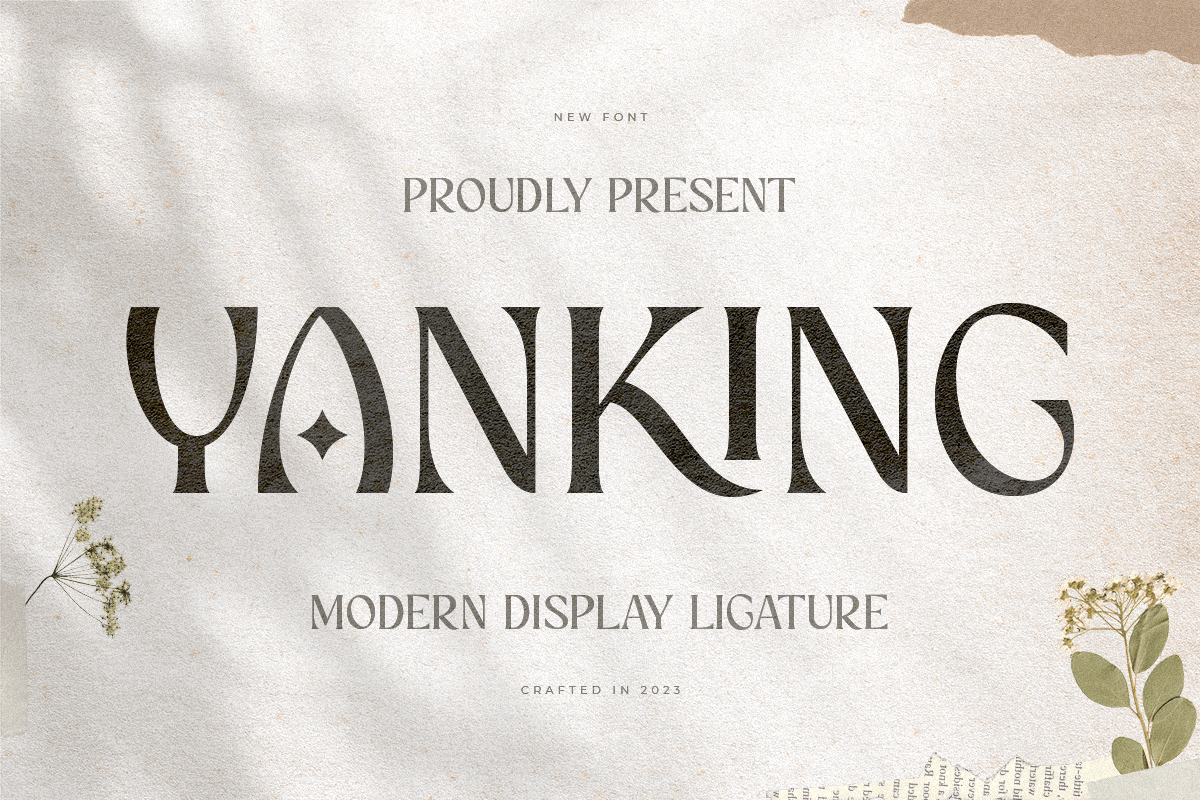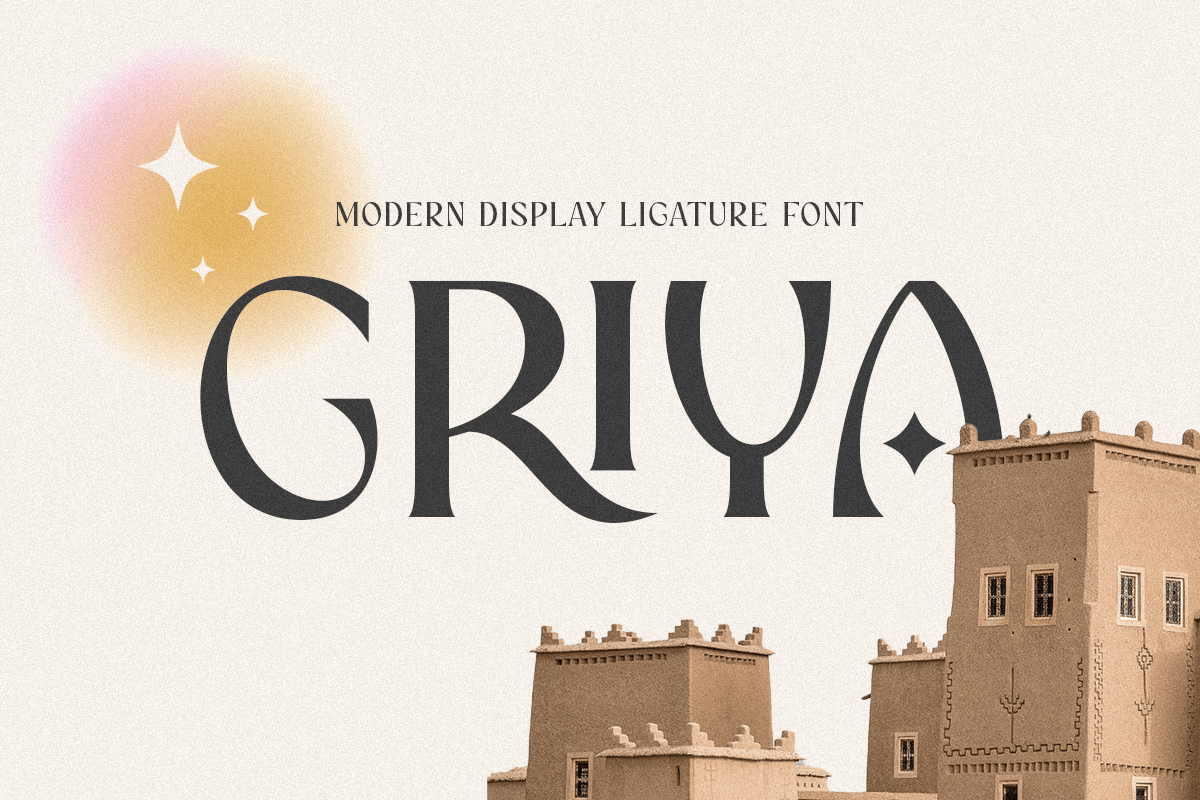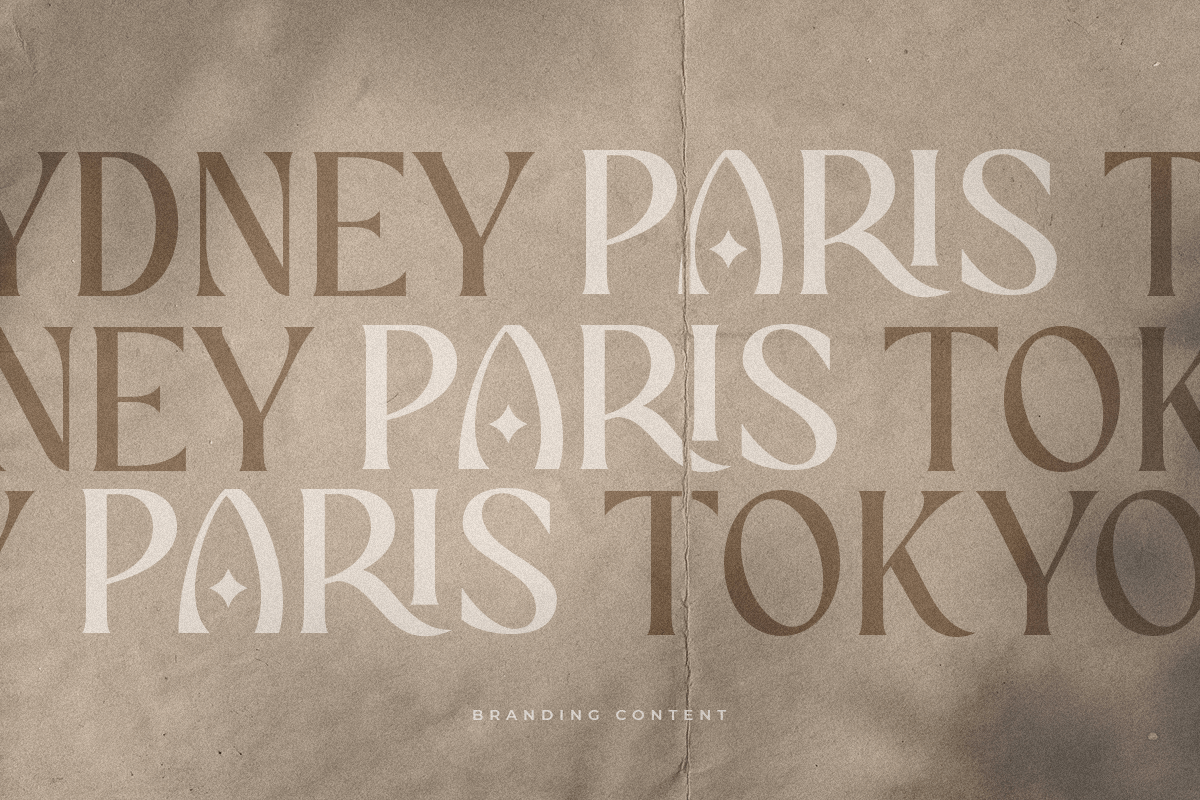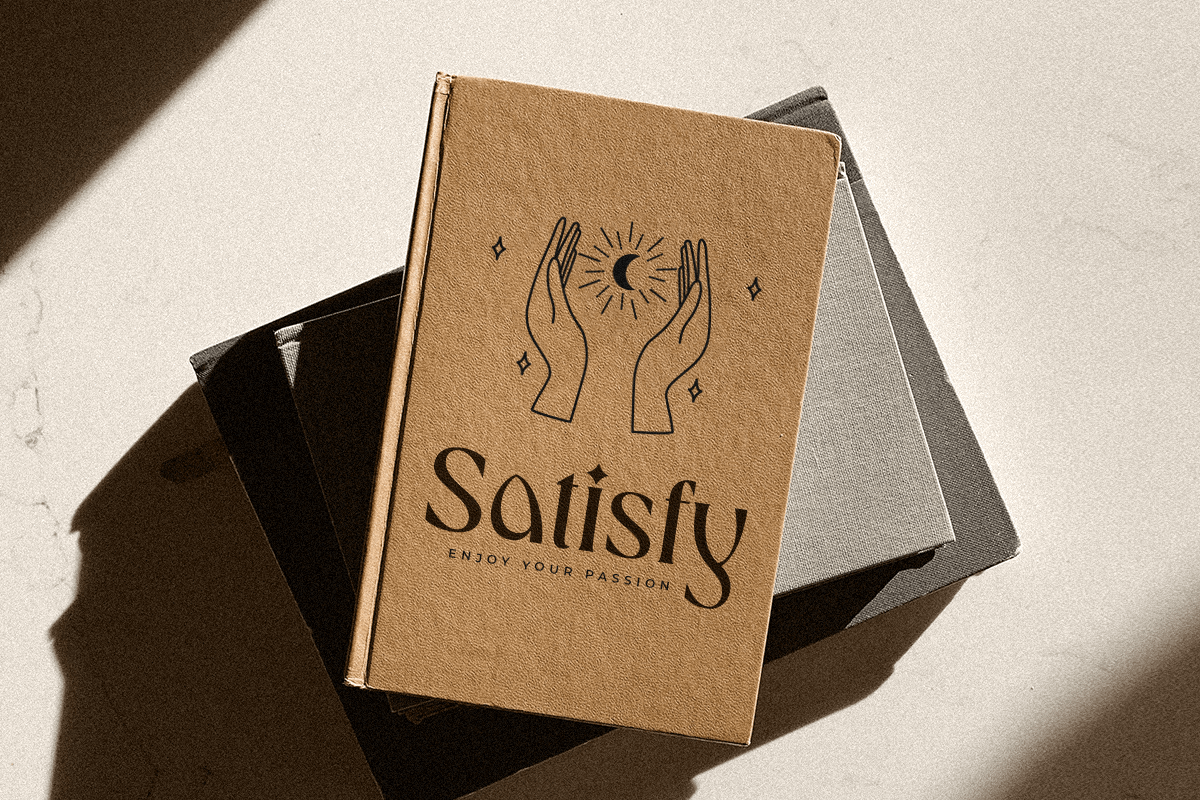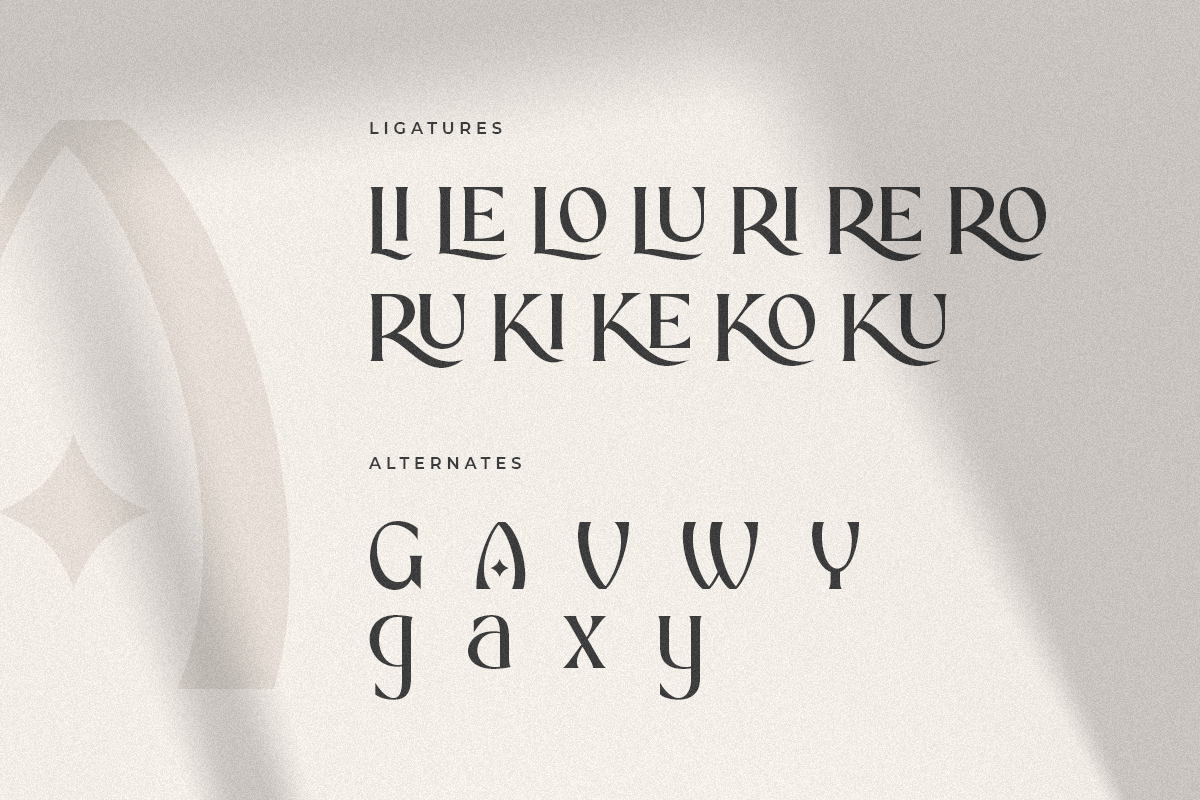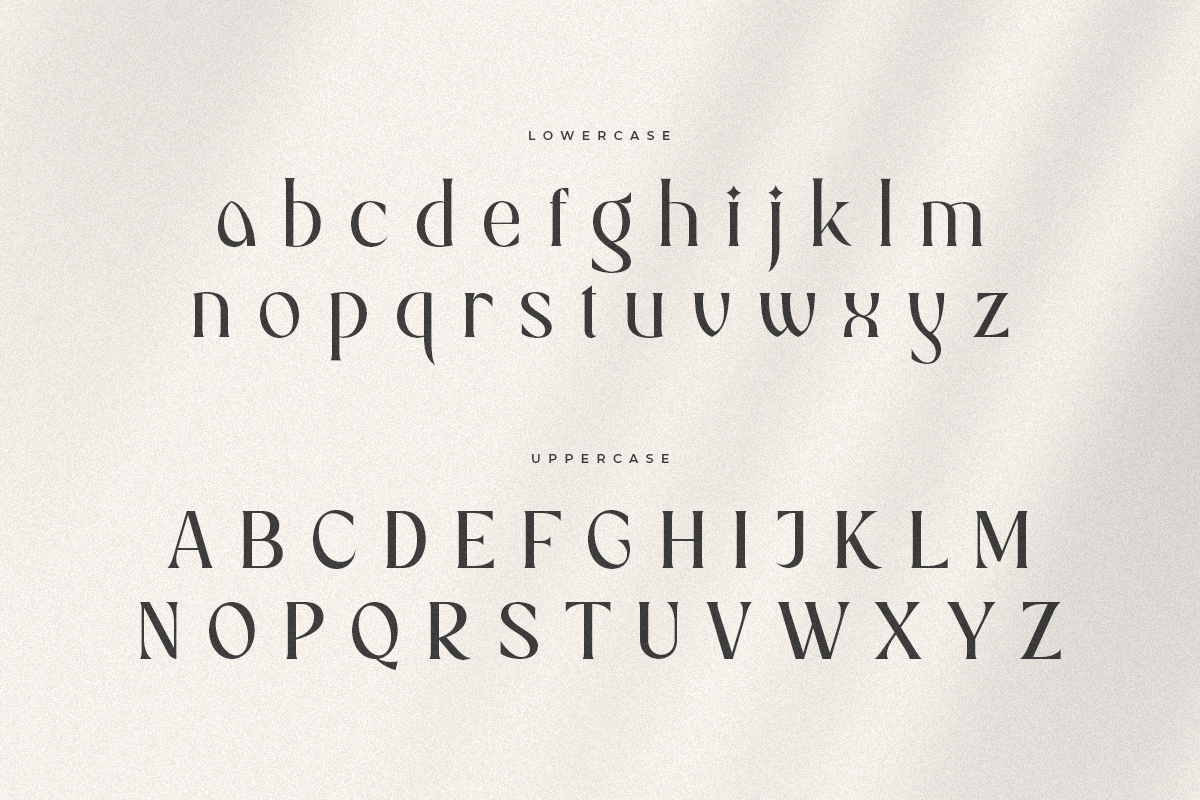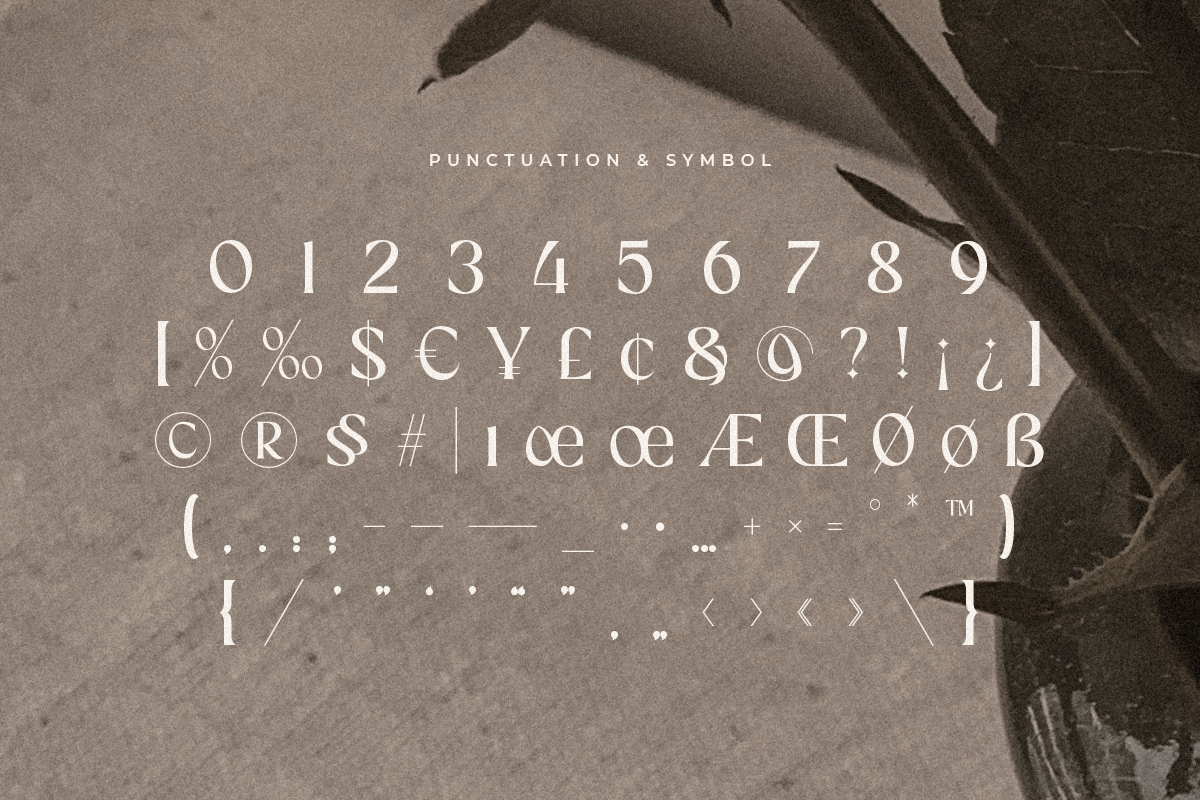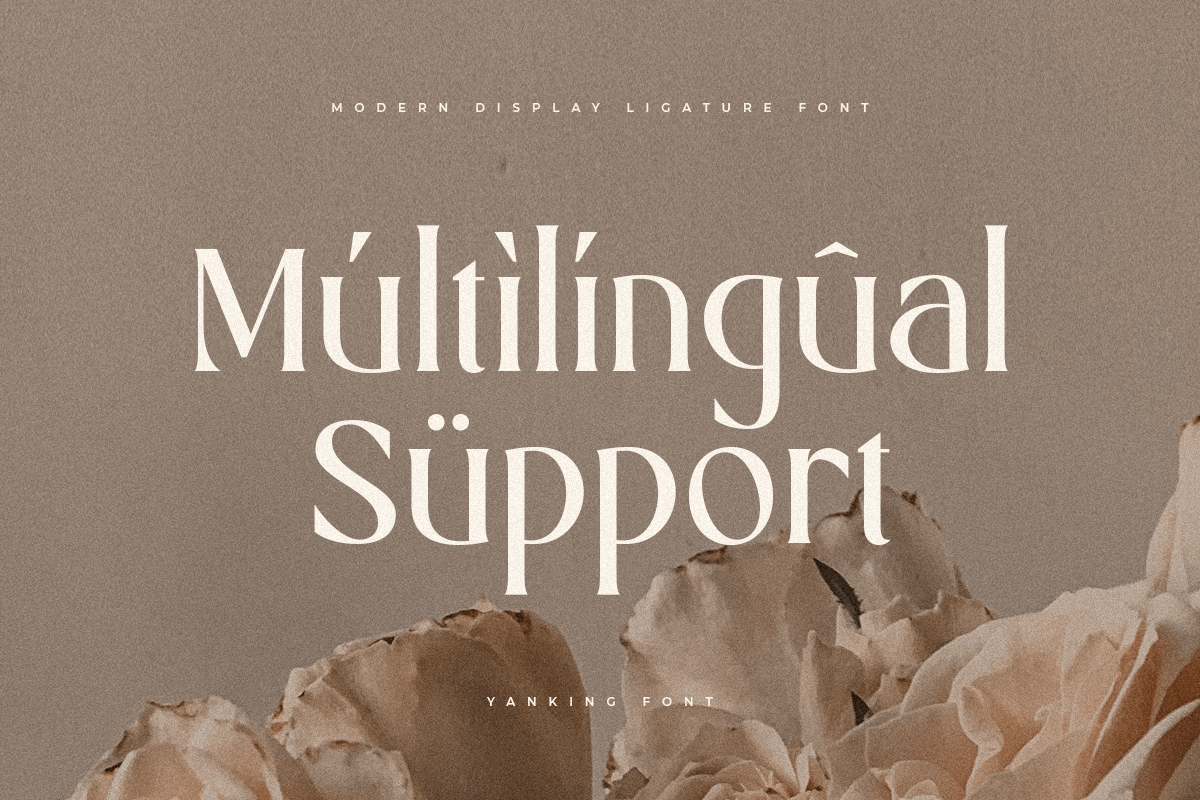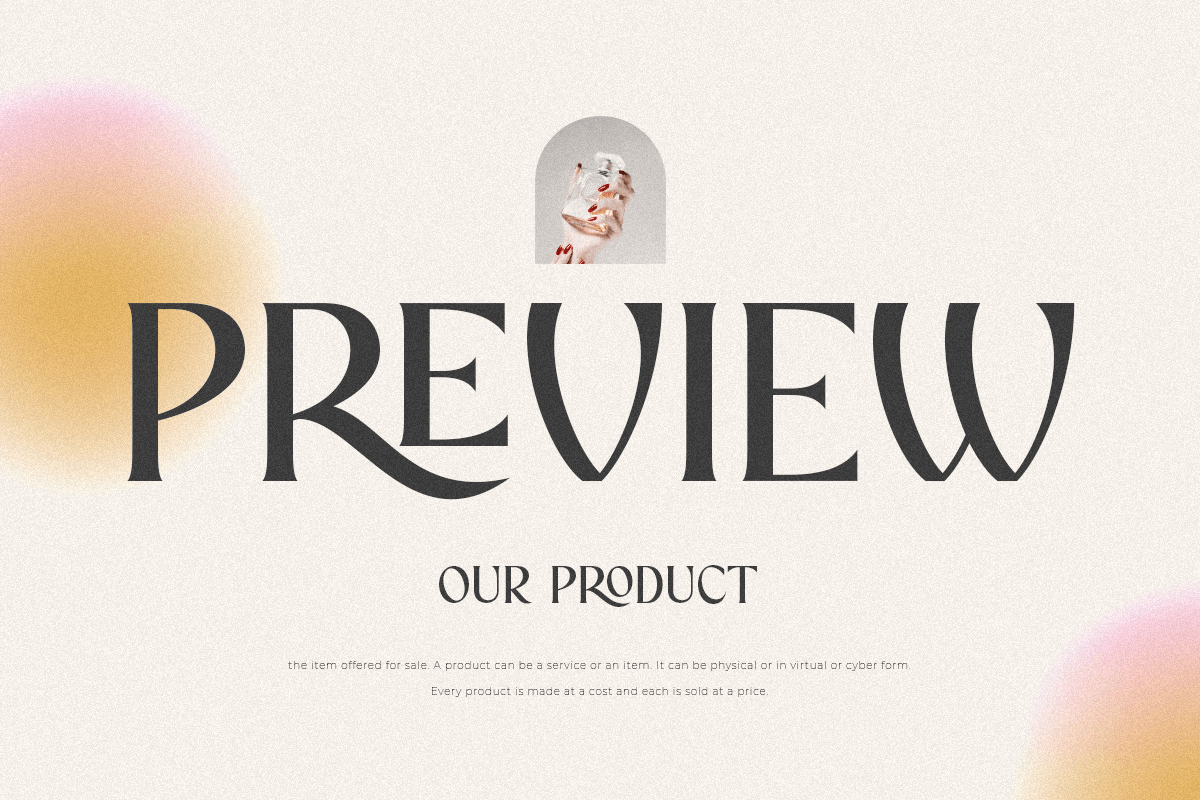
YANKING
-Modern Display Ligature FontType Tester
YANKING is Modern Display Ligature Font is a well-balanced contemporary font with a fancy, unique, and versatile Luxury serif, font that you can combine to get any variations and unique shapes easily just in seconds with choose alternates of them. It is a serif display font with moderate contrast that perfect for branding projects, logo, wedding designs, social media posts, advertisements, product packaging, product designs, label, photography, watermark, invitation, stationery, and any projects, it makes with a high level of legibility.